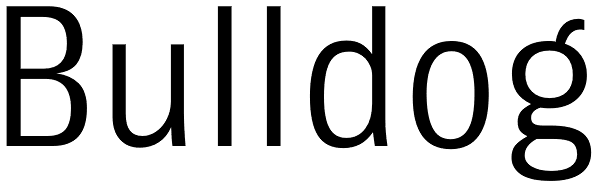
Bulldog
Figgins and Caslon may be names familiar to many as Type Founders. Indeed they are, but they are perhaps less well known for the emergence of Sans Serif type styles which have become part of our lives since 1889. The first hundred years of this...